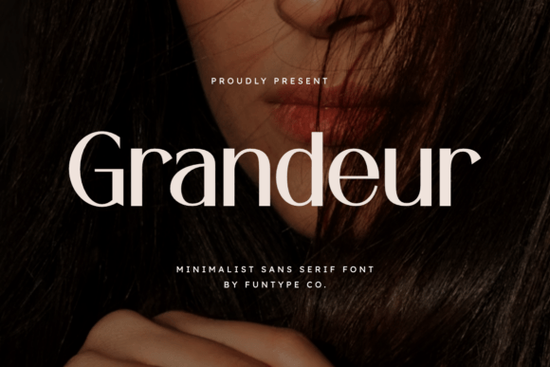
When it comes to creating a strong, professional, and sophisticated look for your designs, the Grandeur Font is an excellent choice. This bold and powerful minimalist sans serif font is designed to make a high-impact statement, making it perfect for headlines, luxury branding, and digital posters.
Why Choose Grandeur Font for Your Design Projects?
Grandeur stands out with its refined solid structure and clean, elegant lines. Whether you're working on a fashion logo or a high-impact digital poster, this font brings a confident and balanced design that enhances the overall aesthetic of your visuals. It's available in both OTF and TTF formats, ensuring maximum compatibility across all design platforms.
How Can You Use Grandeur Font in Different Design Projects?
One of the key strengths of the Grandeur Font is its versatility. Here are some practical ways you can incorporate it into your design projects:
- Headlines and Titles: The bold and powerful nature of Grandeur makes it ideal for creating eye-catching headlines and titles. Use it for blog posts, articles, and even book covers to grab attention.
- Luxury Branding: If you're working on a brand that needs to exude luxury and sophistication, Grandeur is a perfect fit. Its clean lines and refined structure give a premium feel, making it suitable for high-end product packaging, business cards, and more.
- Fashion Logos: The elegance of Grandeur makes it a great choice for fashion logos. Its minimalist design complements modern and chic fashion brands, helping to create a memorable and stylish identity.
- High-Impact Digital Posters: For digital posters, Grandeur provides the impact you need. Its bold and powerful presence ensures that your message stands out, whether it's for a promotional event, a product launch, or a social media campaign.
Comparing Grandeur Font with Other Sans Serif Fonts
While Grandeur has its unique qualities, it's helpful to compare it with other popular sans serif fonts to understand its distinct advantages. Here are a few notable alternatives:
- Homush Font: Known for its geometric shapes and modern feel, Homush is a great option if you're looking for something with a bit more edge. However, Grandeur offers a more traditional and refined look, making it more suitable for luxury and professional settings.
- Breaking Font: This font is dynamic and energetic, perfect for sports and action-oriented designs. In contrast, Grandeur is more about precision and elegance, making it a better choice for high-impact, yet sophisticated visuals.
- Blush Font: Blush is soft and feminine, ideal for wedding invitations and romantic designs. Grandeur, on the other hand, is bolder and more versatile, suitable for a wider range of projects where a strong, professional look is needed.
- Things Font: With its playful and casual style, Things is great for informal and creative projects. Grandeur, with its clean and elegant lines, is more suited for projects that require a serious and professional touch.
Tips for Using Grandeur Font Effectively
To get the most out of Grandeur Font, here are some tips to keep in mind:
- Balance with Other Elements: While Grandeur is bold and powerful, it's important to balance it with other design elements. Use it sparingly for maximum impact, and pair it with simpler, more subtle fonts for body text.
- Consider the Context: Make sure the font fits the context of your project. Grandeur is best for high-impact and professional designs. If your project is more casual or playful, consider a different font like Blush Font.
By incorporating the Grandeur Font into your design toolkit, you can create visuals that are not only impactful but also professional and sophisticated. Whether you're working on a new branding project or designing a digital poster, Grandeur is a reliable and versatile choice.